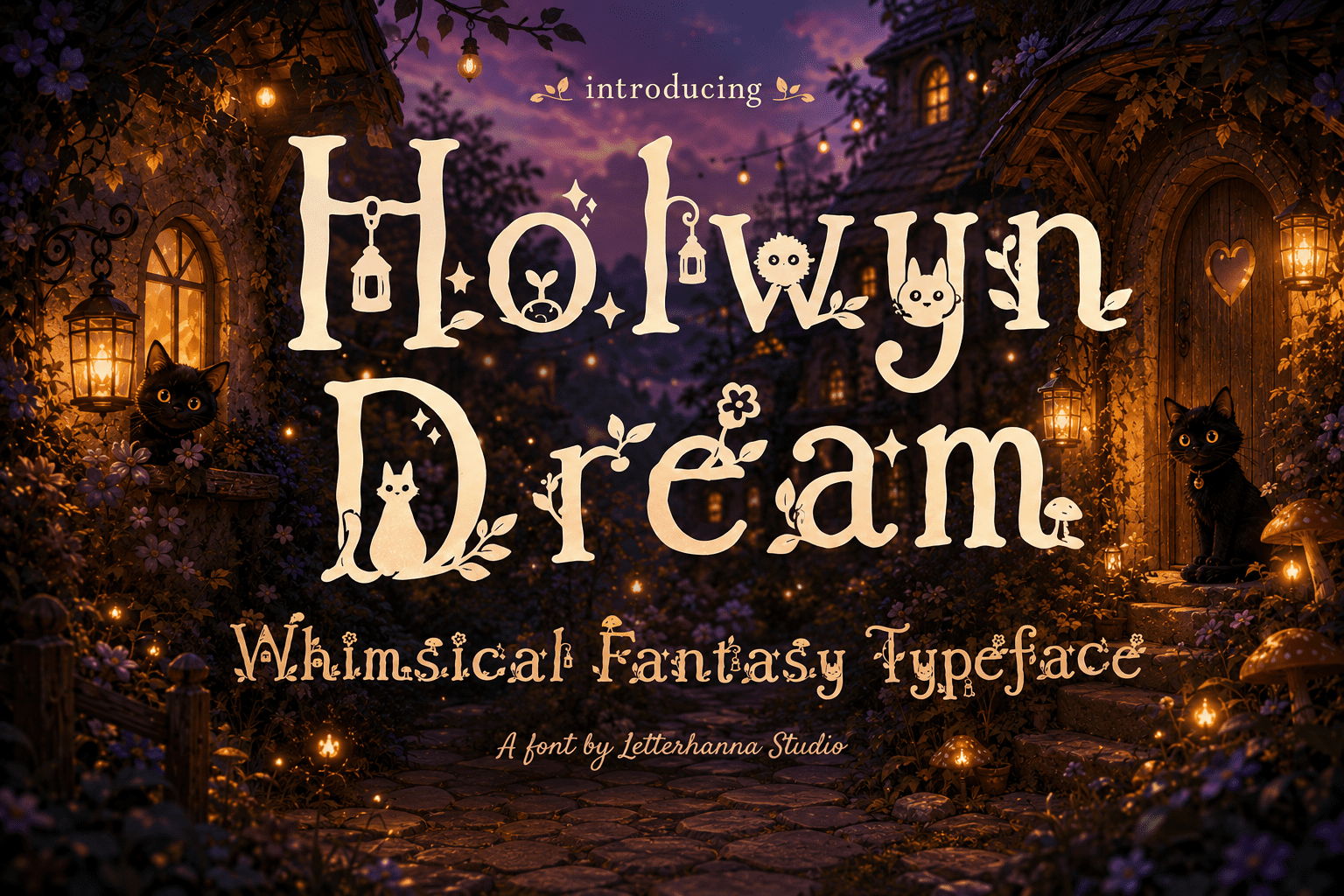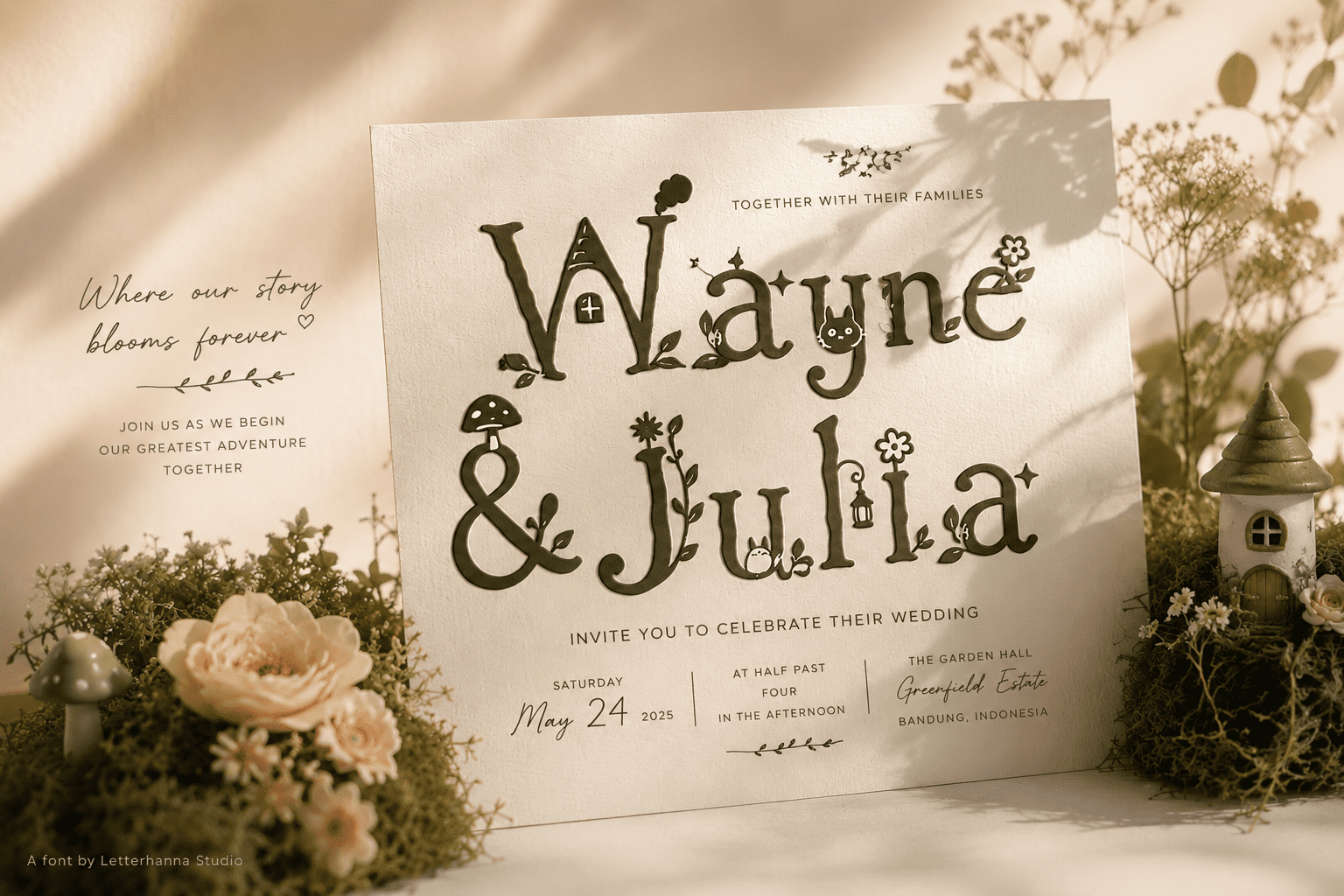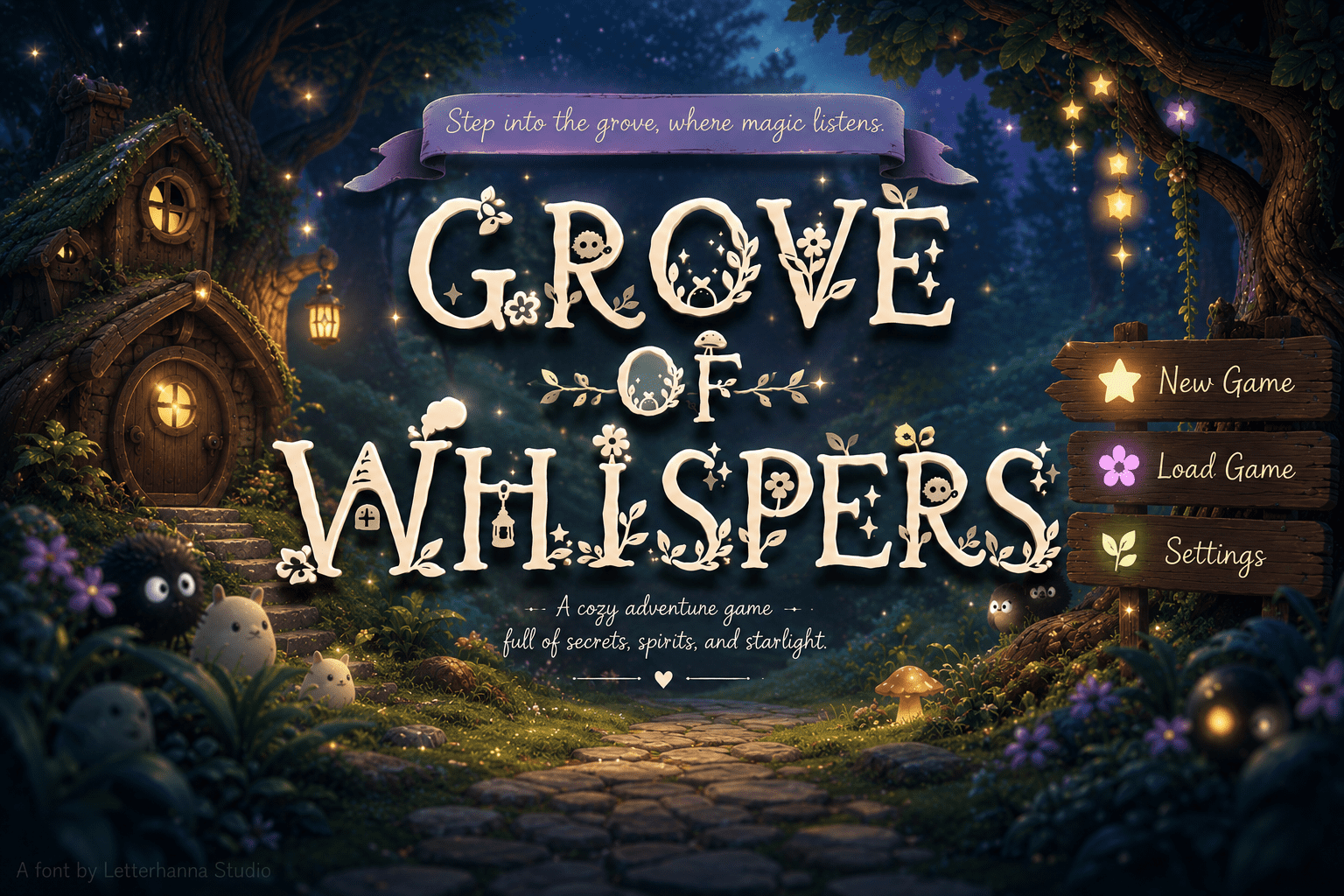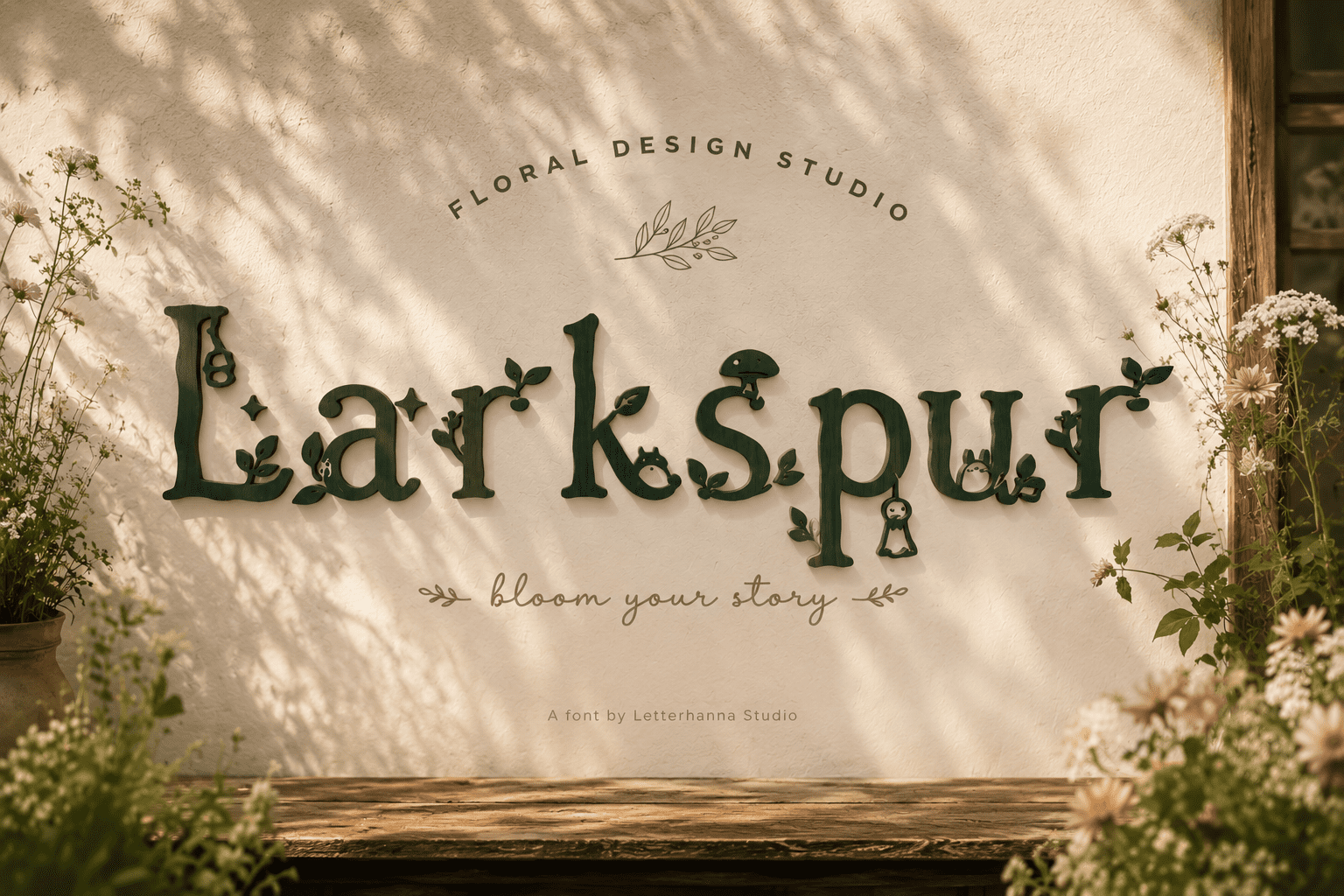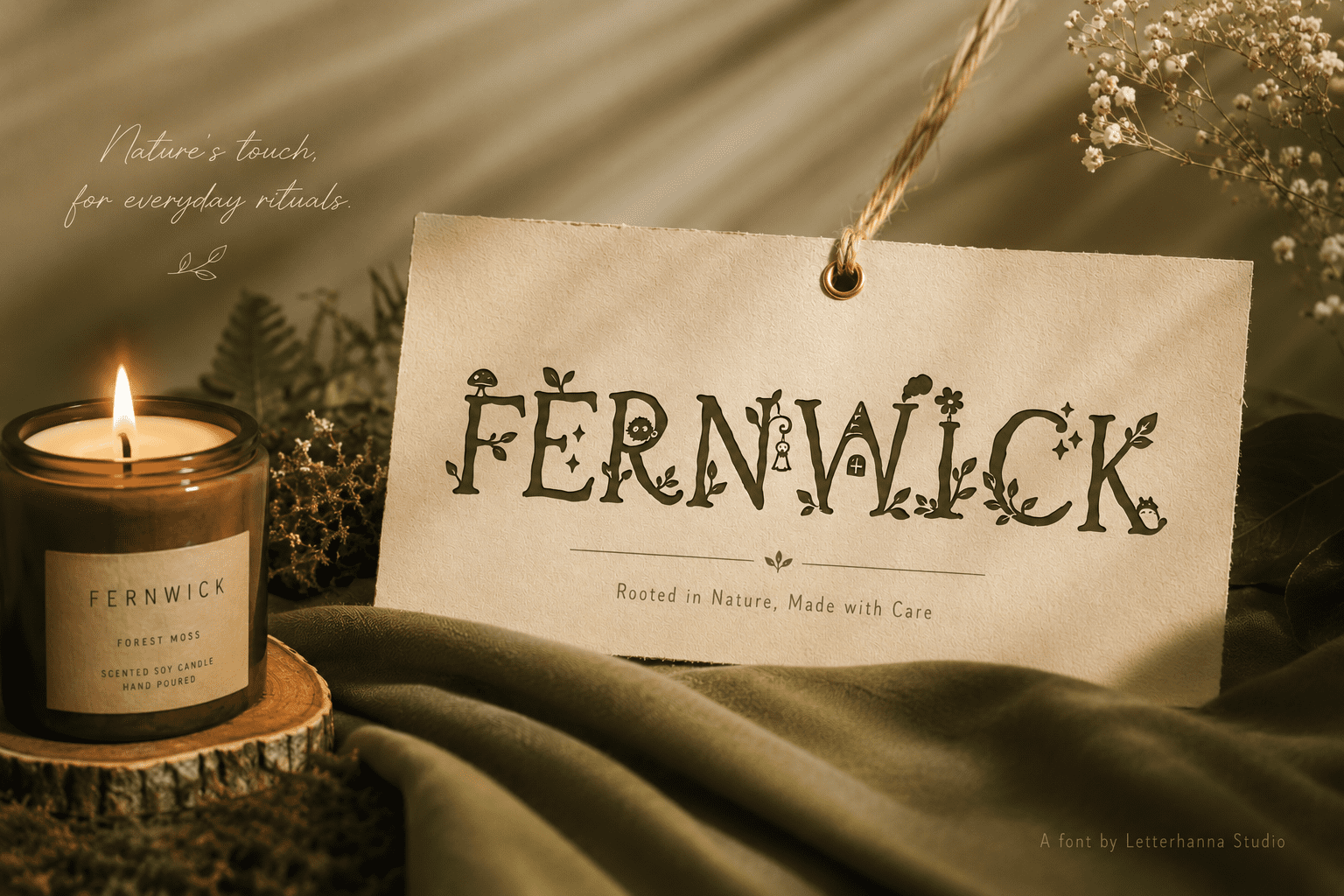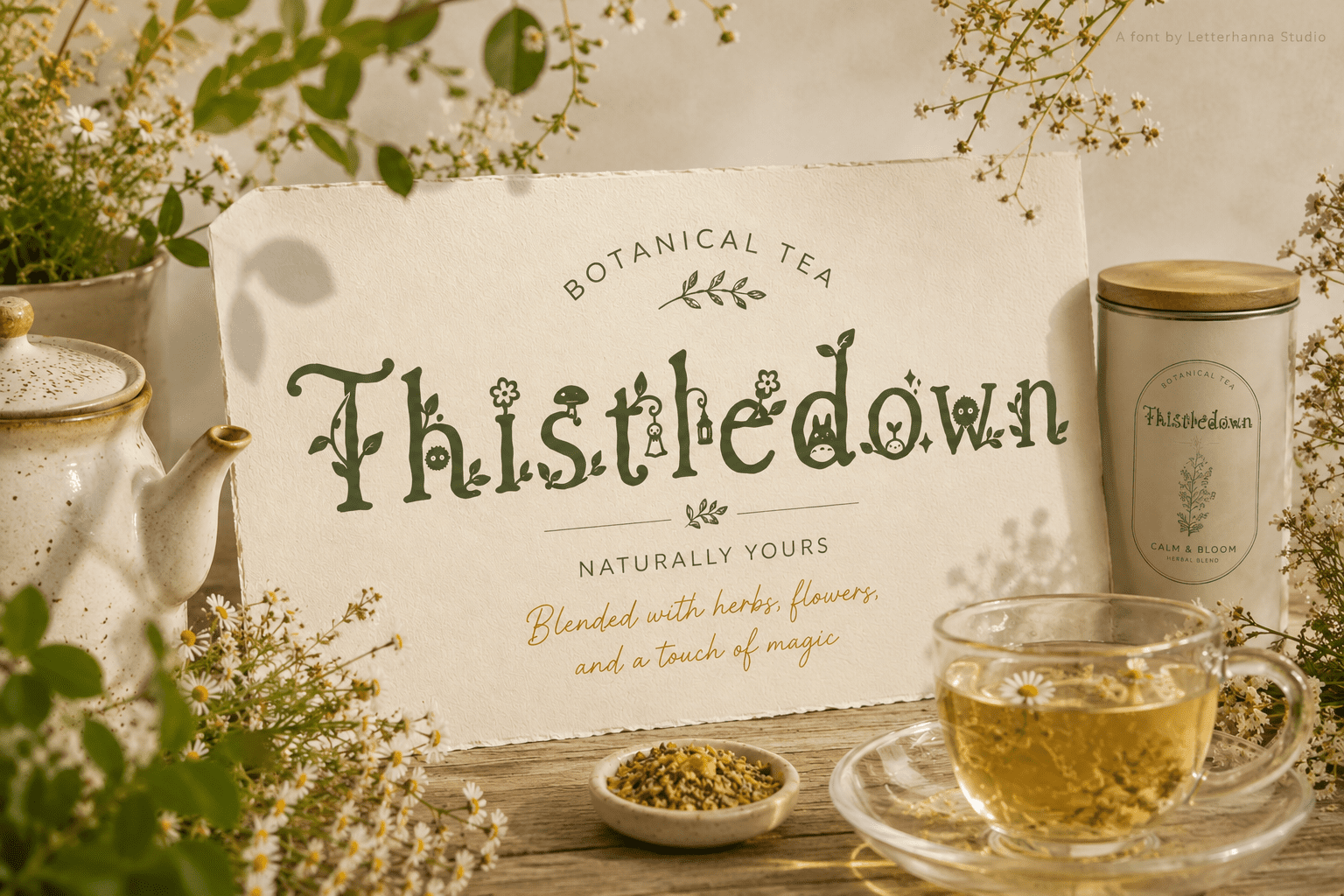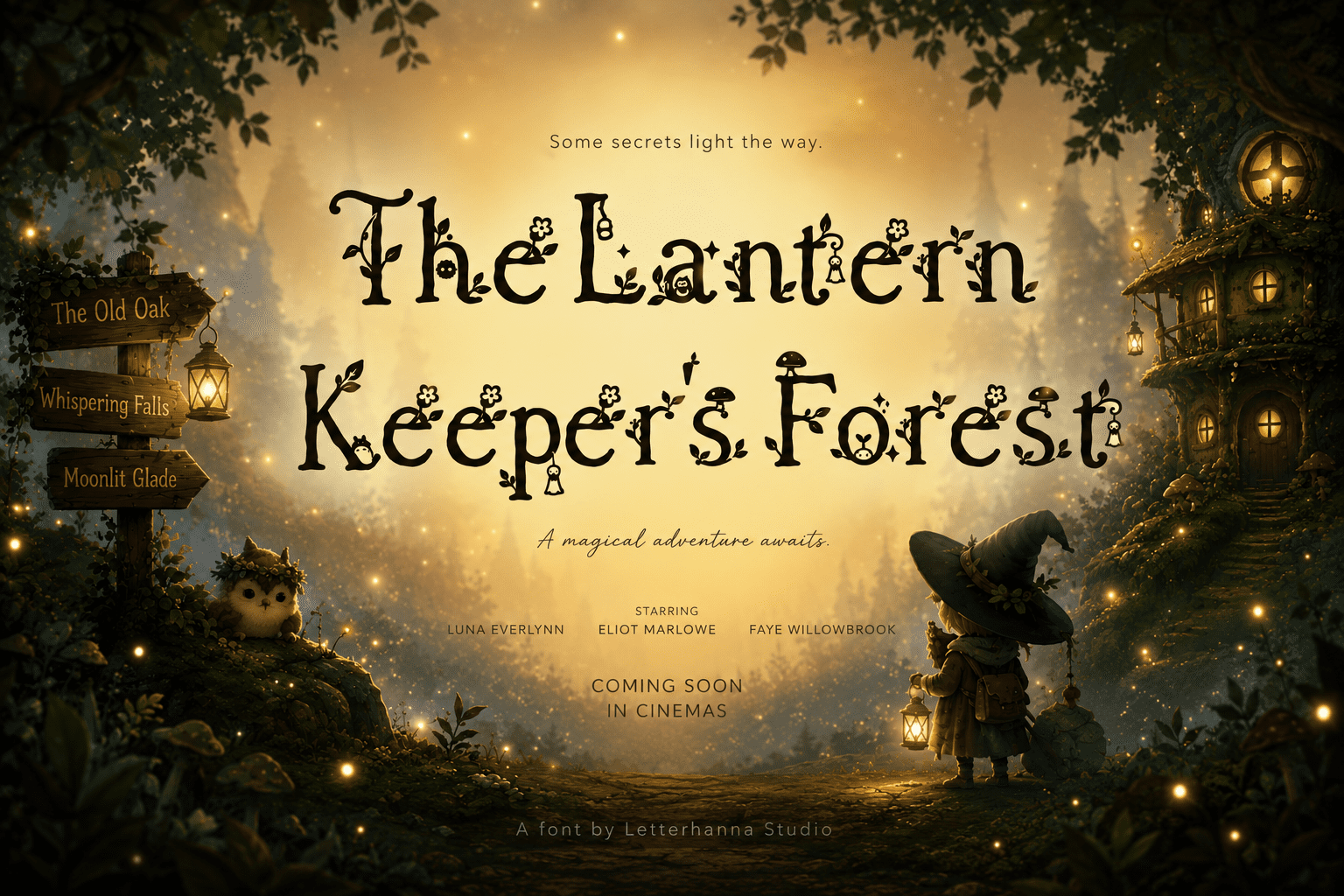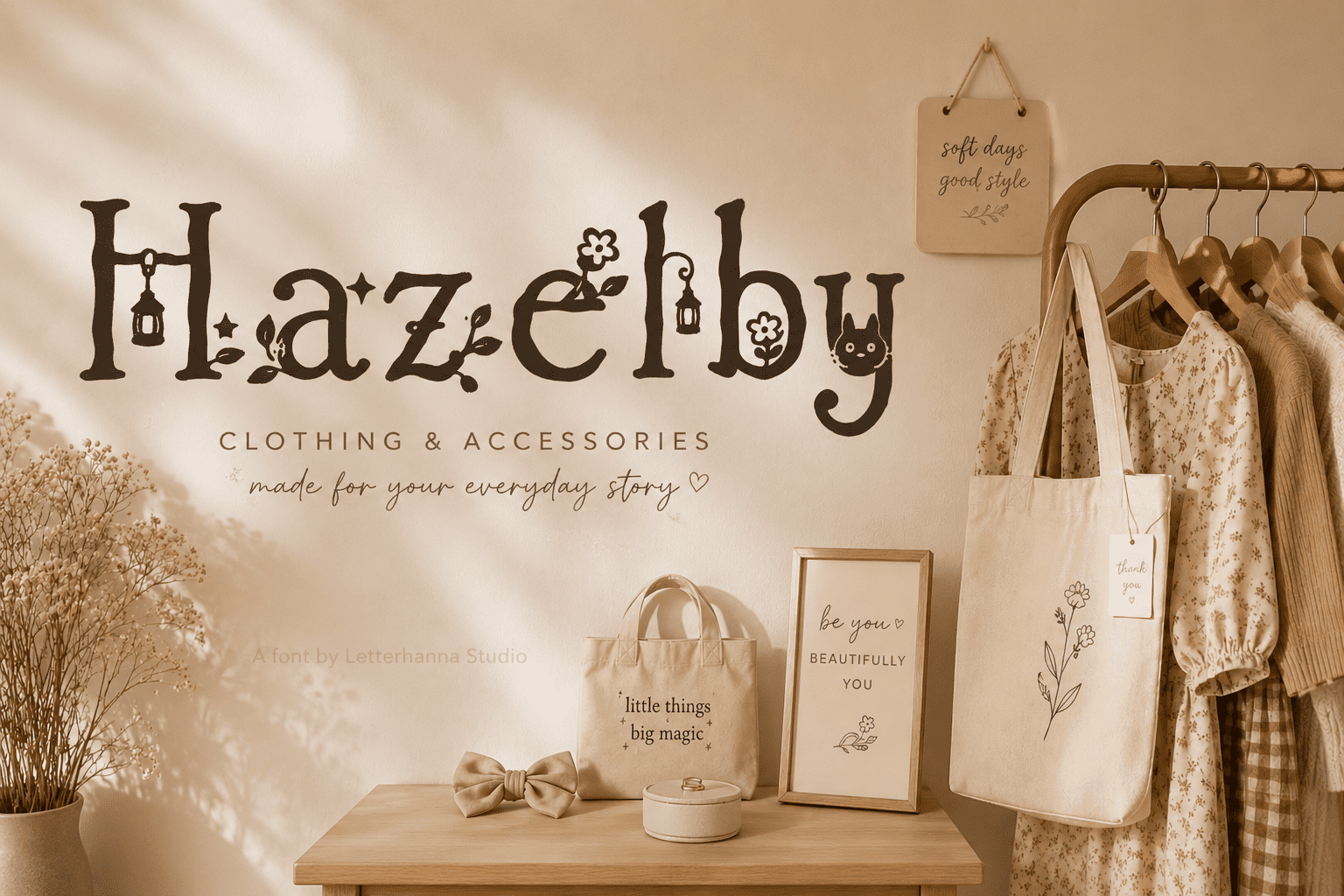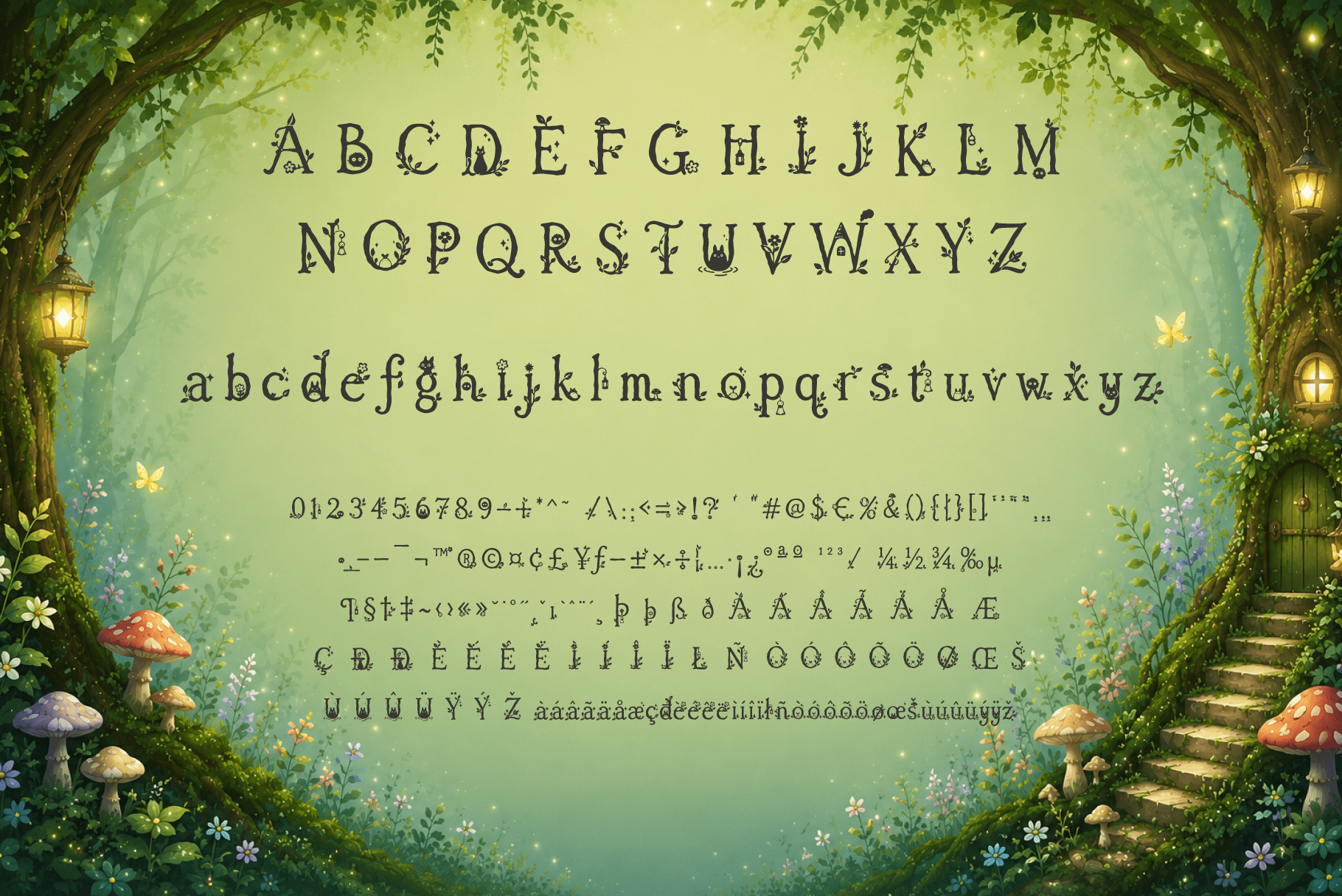
If you have ever wished your designs could feel like they stepped out of a storybook, a magical font like Holwyn Dream might be exactly what you have been searching for. There is something special about typography that carries emotion before a single word is even read, and that is precisely what this whimsical typeface delivers. With its soft, hand-lettered strokes and delicate illustrated details, Holwyn Dream turns ordinary text into a small piece of fantasy letter art.
The Shape, Style, and Vibe of Holwyn Dream
At first glance, Holwyn Dream looks like it was written by candlelight in an old cottage tucked deep in the woods. The letterforms are slim and slightly imperfect, with gentle curves instead of sharp, mechanical lines. This hand-drawn quality gives the font a warm, personal feeling, as though every letter was lettered with care rather than generated by a machine.
What truly sets this magical font apart is the collection of tiny illustrations woven directly into the letters. Small black cats peek out from certain characters, blooming flowers curl along the stems of others, and tiny mushrooms sprout near the base of a few letters. Thin vines and leaves trail from nearly every character, connecting the alphabet into one continuous, living garden. Scattered sparkles add a final touch of enchantment, as if fairy dust had settled across the page.
The overall vibe can best be described as cottagecore meets fantasy. It borrows the cozy, nature-loving spirit of cottagecore, the kind of aesthetic you associate with herbal teas, pressed flowers, and quiet mornings in a garden, and blends it with something a little more magical: witchy familiars, glowing lanterns, and a sense that something enchanted is always just out of sight. It is playful without being childish, and mystical without feeling dark or intimidating.
A Little Story: The Cottage at the Edge of the Forest
Imagine a small stone cottage sitting at the edge of an old forest. Ivy climbs its walls, a black cat naps on the windowsill, and a lantern glows softly by the door even in daylight. Inside, a young witch spends her afternoons pressing flowers into her journal and labeling jars of dried herbs with careful, looping handwriting. Every label, every page, every little note pinned to her corkboard looks like it was written in exactly this kind of whimsical typeface.
This is the story that Holwyn Dream tells without saying a single word. When you use this font on a product label, a wedding invitation, or a social media graphic, you are inviting your audience into that same cottage. You are giving them a small escape into a world where gardens grow a little wilder, cats understand more than they let on, and everyday moments feel touched by quiet magic.
Where This Fantasy Letter Font Shines
Because of its distinctive character, Holwyn Dream is not meant for every project, but for the right one, it is unbeatable. It works beautifully for candle and skincare packaging that wants a witchy, botanical feel. It suits wedding stationery for couples dreaming of a fairycore or woodland celebration. Journal covers, planner designs, and printable quotes all benefit from its storybook charm, as do social media graphics for small businesses that want to stand out with something warm and a little bit magical.
Bloggers and content creators writing about tarot, herbalism, folklore, or cozy fantasy fiction will also find that this font instantly sets the right tone. A single headline in Holwyn Dream can communicate an entire aesthetic before a reader even gets to the first sentence.
Pairing Holwyn Dream With the Rest of Your Design
A font this detailed works best when it is given room to breathe. Use it for headlines, titles, logos, or short quotes rather than long paragraphs of body text, and pair it with a simple, clean sans-serif for supporting copy. This contrast lets the whimsical typeface remain the star of the design while keeping the overall layout easy to read. A soft, muted color palette of forest greens, dusty pinks, and warm creams will complement the illustrated details even further, reinforcing that cottagecore fantasy mood from top to bottom.
Bringing a Little Magic Into Your Own Work
Typography is often the first thing people notice, even before they consciously register it. Choosing a magical font like Holwyn Dream means choosing to give your project personality from the very first glance. It says that what follows is not going to be ordinary, that there is a little whimsy and wonder waiting to be discovered.